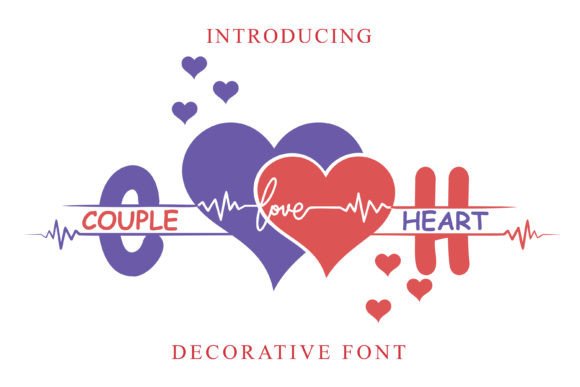
Introducing Couple Heart Font: The Ultimate Decorative Monogram Font for Your Creative Projects
Are you a designer, crafter, or DIY enthusiast looking for a unique and adorable font to add a personal touch to your creative projects? Look no further than Couple Heart Font, a decorative monogram font that is sure to capture the hearts of your audience. In this article, we’ll dive into the features and benefits of Couple Heart Font, and explore how it can elevate your Valentine’s Cards, t-shirts, invitations, book covers, posters, and more.
What is Couple Heart Font?
Couple Heart Font is a one-of-a-kind decorative monogram font that combines elegance and playfulness. Its unique design features intertwined hearts and letters, making it perfect for projects that require a romantic and whimsical touch. Whether you’re creating a Valentine’s Day card, a wedding invitation, or a t-shirt design, Couple Heart Font is sure to add a special something to your work.
Key Features of Couple Heart Font
- Unique and Adorable Design: Couple Heart Font features a distinctive design that combines hearts and letters in a beautiful and intricate way.
- Decorative Monogram Font: This font is specifically designed as a monogram font, making it perfect for creating custom logos, initials, and decorative text.
- Valentine’s Day and Wedding Ready: With its romantic and whimsical design, Couple Heart Font is ideal for Valentine’s Day and wedding-related projects.
- Multipurpose: This font can be used for a wide range of projects, including t-shirts, invitations, book covers, posters, and more.
Benefits of Using Couple Heart Font
So why choose Couple Heart Font for your creative projects? Here are just a few benefits of using this amazing font:
- Adds a Personal Touch: With Couple Heart Font, you can add a personal touch to your projects and make them stand out from the crowd.
- High-Quality Design: Couple Heart Font features a high-quality design that is sure to impress your audience.
- Versatile: This font can be used for a wide range of projects, from digital designs to print materials.
- Choose Your Project: Choose the project you want to work on, whether it’s a Valentine’s Day card, a t-shirt design, or a poster.
- Add a Personal Touch: Add a personal touch to your project by experimenting with different design elements, such as colors, textures, and graphics.
Need some inspiration for your Couple Heart Font projects? Here are a few ideas to get you started:
- Valentine’s Day Cards: Create custom Valentine’s Day cards for your loved ones using Couple Heart Font.
- T-Shirt Designs: Design custom t-shirts for Valentine’s Day, weddings, or anniversaries using Couple Heart Font.
- Wedding Invitations: Create beautiful wedding invitations using Couple Heart Font and make your special day even more memorable.
- Posters and Flyers: Design eye-catching posters and flyers for events, promotions, or announcements using Couple Heart Font.
In conclusion, Couple Heart Font is a unique and adorable decorative monogram font that is perfect for designers, crafters, and DIY enthusiasts. With its romantic and whimsical design, this font is sure to add a special touch to your creative projects. Whether you’re creating Valentine’s Day cards, t-shirts, invitations, book covers, or posters, Couple Heart Font is the perfect choice. So why wait? Download Couple Heart Font today and start creating beautiful projects that will capture the hearts of your audience!